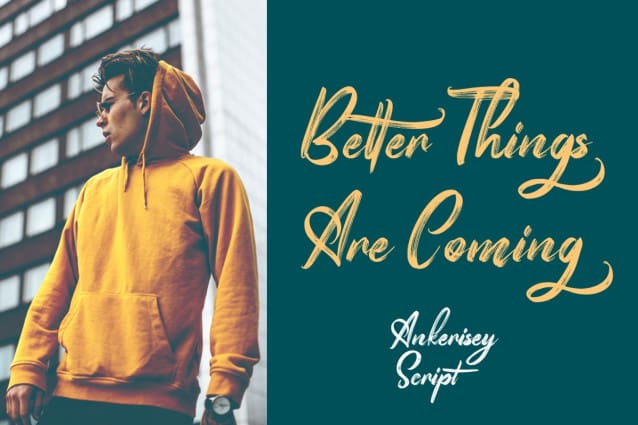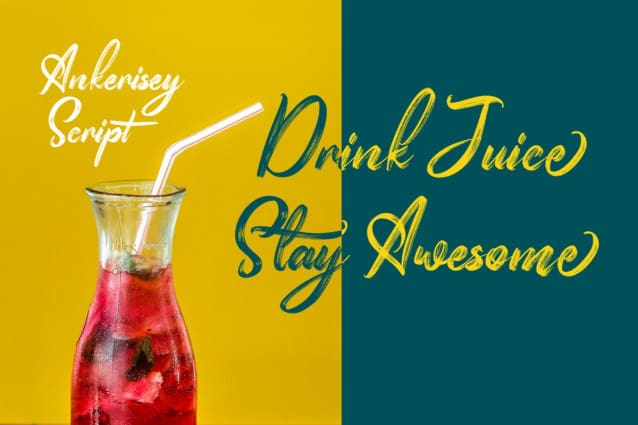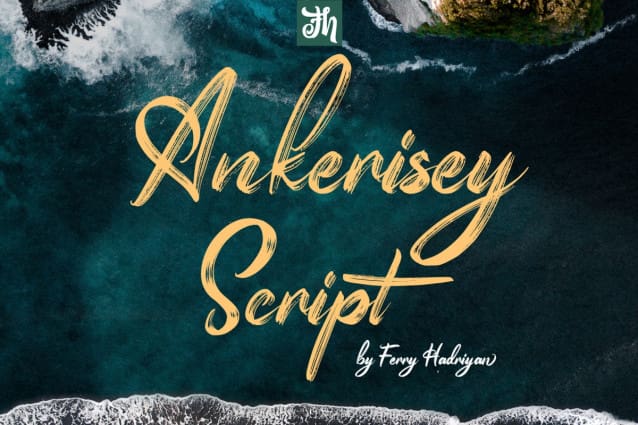
Ankerisey Brush Font
Ankerisey Brush Font is Script Font with Handlettering Dry Brush Style, with opentype feature include of the font. Suitable for design, element design, wedding, event, t-shirt, logo, badges, sticker, and awesome work, etc..